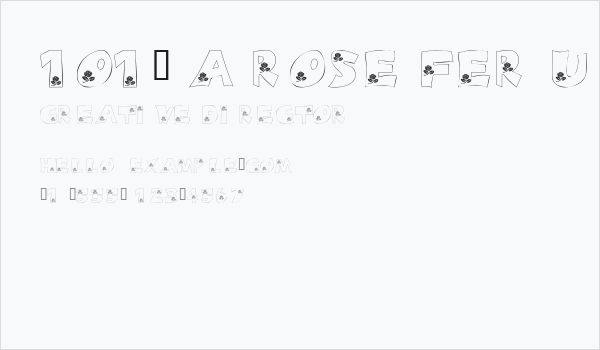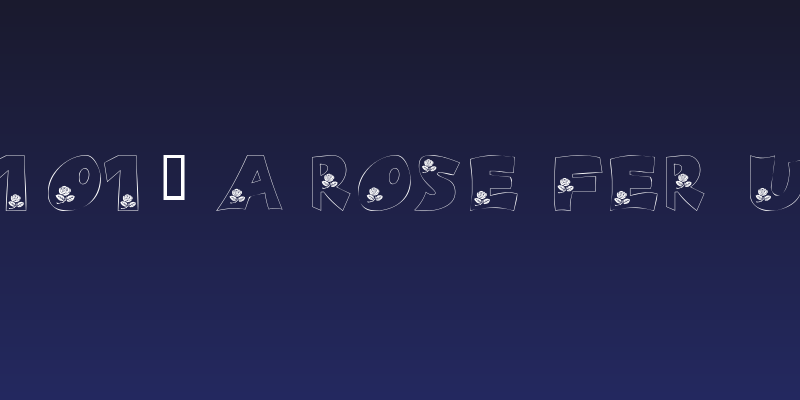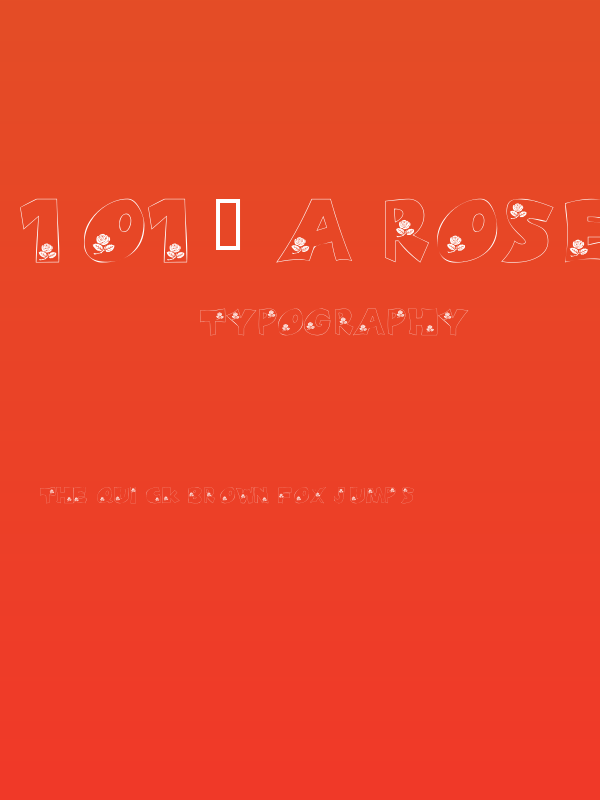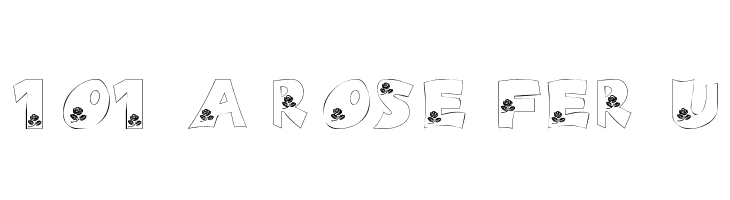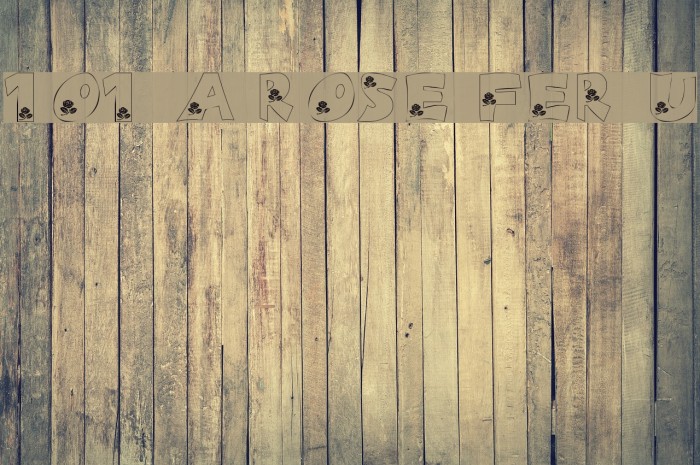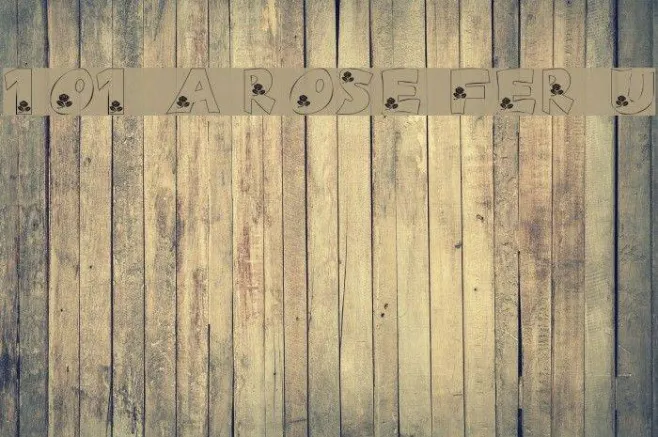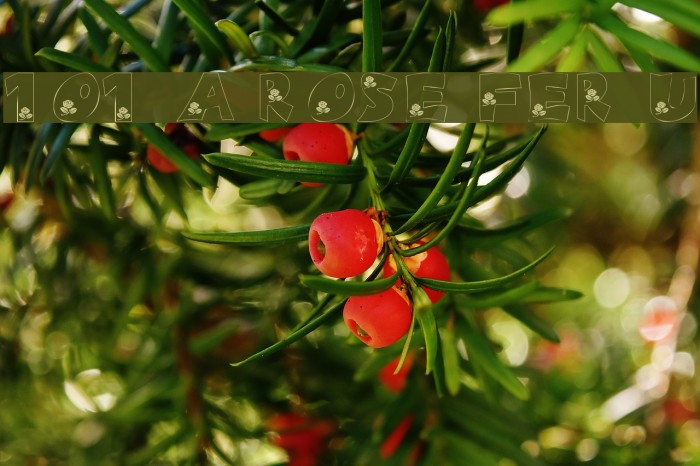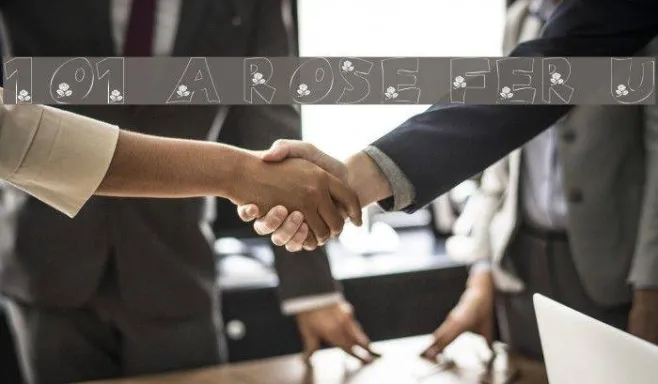
101! A Rose fer U Font
101! A Rose fer U Description
This playful and decorative font features bold, blocky letters with a unique twist—each character is adorned with a small rose illustration. The uppercase and lowercase letters maintain a consistent style, with the roses adding a whimsical touch. The numbers and special characters follow the same design, making the font cohesive and visually engaging. The overall appearance is both fun and artistic, perfect for projects that require a creative flair.
| Use Case | Headlines, Logos, Creative projects |
| Proposed Projects | Ideal for greeting cards, children's books, playful branding, or any project needing a whimsical touch. |